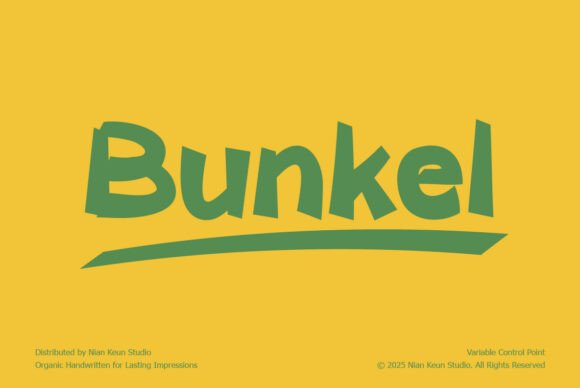
The Bunkel Font: A Playful and Versatile Typeface for Creative Projects
I still remember the design project that led me to discover the Bunkel font. I was working on a children’s book, struggling to find the perfect font that would bring the story to life. The client wanted something fun, playful, and engaging, but also easy to read. After hours of searching, I stumbled upon Bunkel, and it was love at first sight! ✨
The Bunkel typeface is defined by its wide, round, and slightly distorted forms, giving the impression of letters cut from soft material or drawn with a broad, playful brush. The heavyweight maximizes its presence, making it impossible to ignore. Its unique angled cuts and soft edges give the Bunkel font an unmistakable organic personality, making it suitable for children’s media, food and beverage branding, and any advertising that seeks to be approachable and fun.
- ✨ Unique and playful design that adds a touch of personality to any project
- ✅ Highly legible, even in large formats like posters and signage
- ✅ Versatile and adaptable for various design applications, from branding to packaging
- ✅ Easy to pair with other fonts, thanks to its distinctive style
While Bunkel is an amazing font, there are a few things to keep in mind: 🤔
- ⚠️ May not be suitable for formal or professional projects, due to its playful nature
- ⚠️ Some characters may appear slightly distorted, which can be a deliberate design choice or a limitation
The Story Behind Bunkel
Bunkel was designed with the intention of creating a font that’s both fun and functional. The designer wanted to craft a typeface that would evoke a sense of playfulness and creativity, while still being easy to read and understand. The result is a font that’s perfect for children’s media, food and beverage branding, and any advertising that seeks to be approachable and fun.
Q: What is the best use for Bunkel font?
A: Bunkel is perfect for creative projects that require a playful and engaging font, such as children’s media, food and beverage branding, and advertising.
Q: Is Bunkel suitable for formal projects?
A: No, Bunkel’s playful nature makes it less suitable for formal or professional projects.